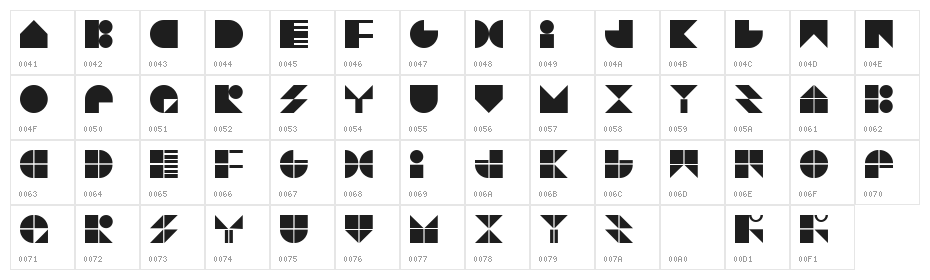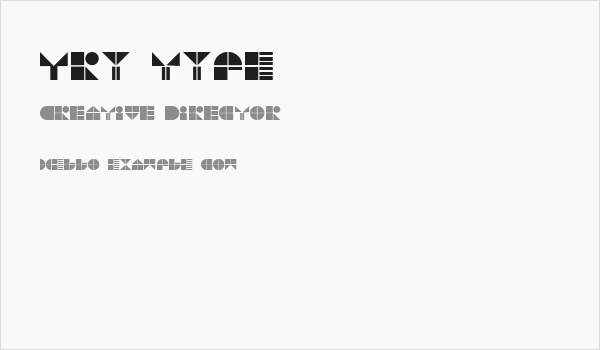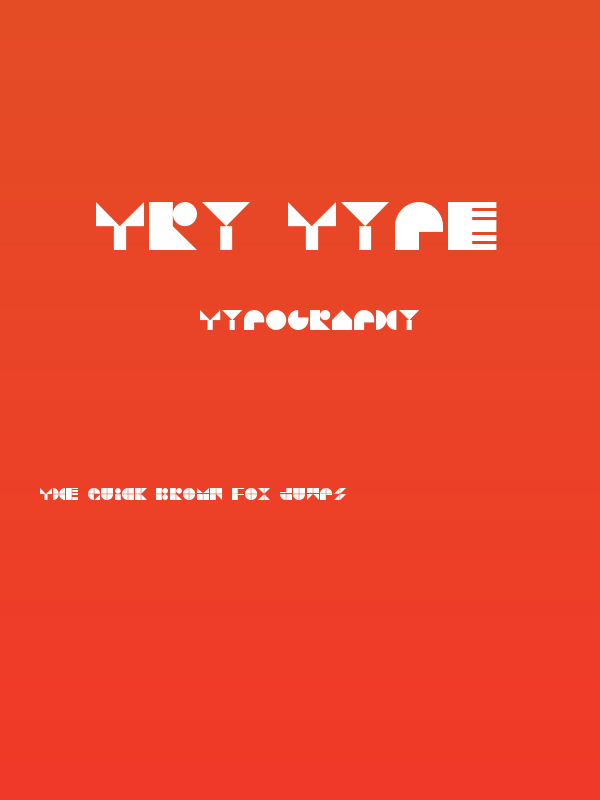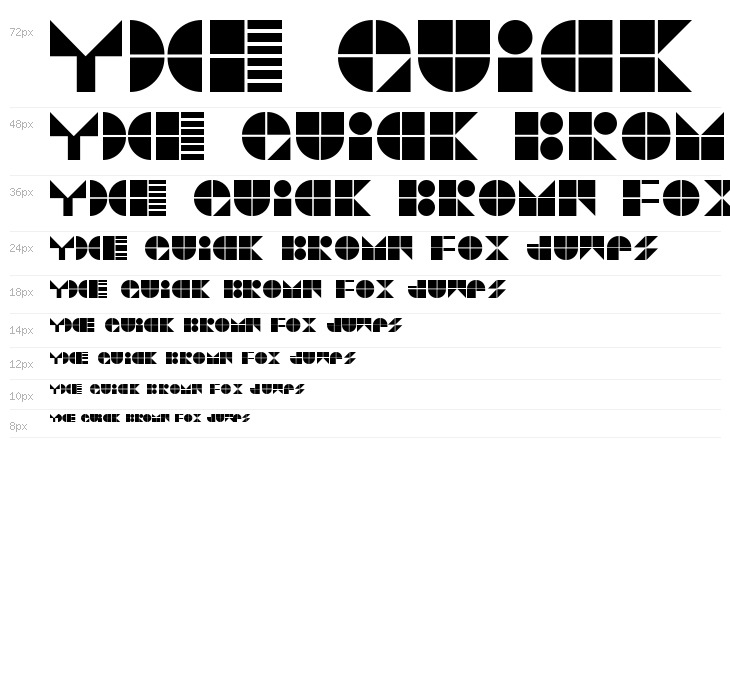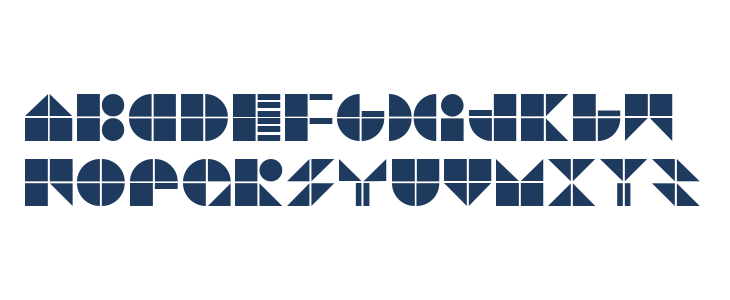
Try type Font
Try type Description
This font features a bold and geometric design, characterized by its use of solid shapes and sharp angles. Each character is constructed with a combination of circles, triangles, and rectangles, creating a visually striking and modern appearance. The uppercase letters are particularly distinctive, with some incorporating unique cutouts and patterns that enhance their futuristic feel. The lowercase letters maintain the geometric theme, offering a cohesive look across the typeface. Numbers and special characters are designed with the same attention to geometric form, ensuring consistency throughout. This font's unique style makes it ideal for projects that require a bold and avant-garde aesthetic.
| Proposed Projects | Ideal for branding, posters, album covers, and any project seeking a modern, avant-garde look. |